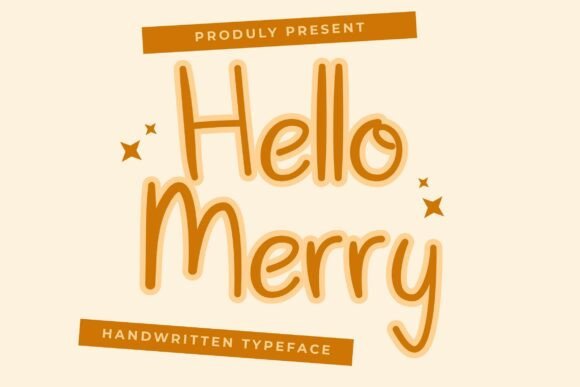
Hello Merry Font: The Ultimate Handwritten Font for Joyful Designs
In the world of typography, fonts play a crucial role in conveying emotions and setting the tone for a design. If you’re looking for a font that exudes joy, warmth, and personality, look no further than the Hello Merry font. This delightful handwritten font is designed to bring a touch of whimsy and playfulness to every design, making it perfect for a wide range of applications.
Characteristics of Hello Merry Font
Hello Merry is a beautifully crafted handwritten font that boasts several distinctive characteristics. Its bouncy curves, smooth strokes, and organic flow give it a lively and energetic feel, reminiscent of a handwritten note from a dear friend. The font’s playful and friendly demeanor makes it an excellent choice for designs that require a personal touch.
• Bouncy Curves: Hello Merry’s curves are effortlessly fluid, giving the font a carefree and lively feel.
• Smooth Strokes: The font’s smooth strokes create a sense of continuity and flow, making it easy to read and visually appealing.
• Organic Flow: Hello Merry’s organic flow gives it a natural, handwritten feel that’s perfect for designs that require a personal touch.
Perfect for a Variety of Design Applications
Hello Merry is an incredibly versatile font that can be used in a wide range of design applications. Its playful and friendly nature makes it perfect for:
• Greeting Cards: Add a personal touch to your greeting cards with Hello Merry’s warm and inviting feel.
• Quotes: Make your quotes stand out with Hello Merry’s playful and energetic vibe.
• Invitations: Create memorable invitations with Hello Merry’s lively and engaging font.
• Social Media Content: Bring your social media content to life with Hello Merry’s fun and carefree feel.
• Kids Branding: Hello Merry’s playful nature makes it an excellent choice for kids’ branding, including logos, packaging, and marketing materials.
• Cheerful Packaging: Add a touch of whimsy to your packaging with Hello Merry’s lively and energetic font.
Design Tips for Using Hello Merry Font
To get the most out of Hello Merry, here are some design tips to keep in mind:
• Pair with contrasting fonts: Pair Hello Merry with a contrasting font to create visual interest and make your design stand out.
• Use for headlines and titles: Hello Merry is perfect for headlines and titles, where its playful and energetic feel can shine.
• Experiment with colors: Don’t be afraid to experiment with different colors to find the perfect match for your design.
• Add illustrations: Hello Merry pairs well with illustrations, so consider adding some fun and playful illustrations to your design.
Benefits of Using Hello Merry Font
Hello Merry offers several benefits that make it an excellent choice for designers:
• Unique and distinctive: Hello Merry is a one-of-a-kind font that will set your design apart from the rest.
• Easy to read: Despite its playful nature, Hello Merry is incredibly easy to read, making it perfect for body text and captions.
• Versatile: Hello Merry can be used in a wide range of design applications, from greeting cards to social media content.
• Fun and engaging: Hello Merry’s playful and energetic feel makes it perfect for designs that require a fun and engaging tone.
In conclusion, Hello Merry is a delightful handwritten font that’s perfect for designers looking to add a touch of joy, warmth, and personality to their designs. Its bouncy curves, smooth strokes, and organic flow make it a standout font that’s sure to bring a smile to your audience’s face. Whether you’re designing greeting cards, quotes, invitations, or social media content, Hello Merry is an excellent choice that’s sure to make your design shine.